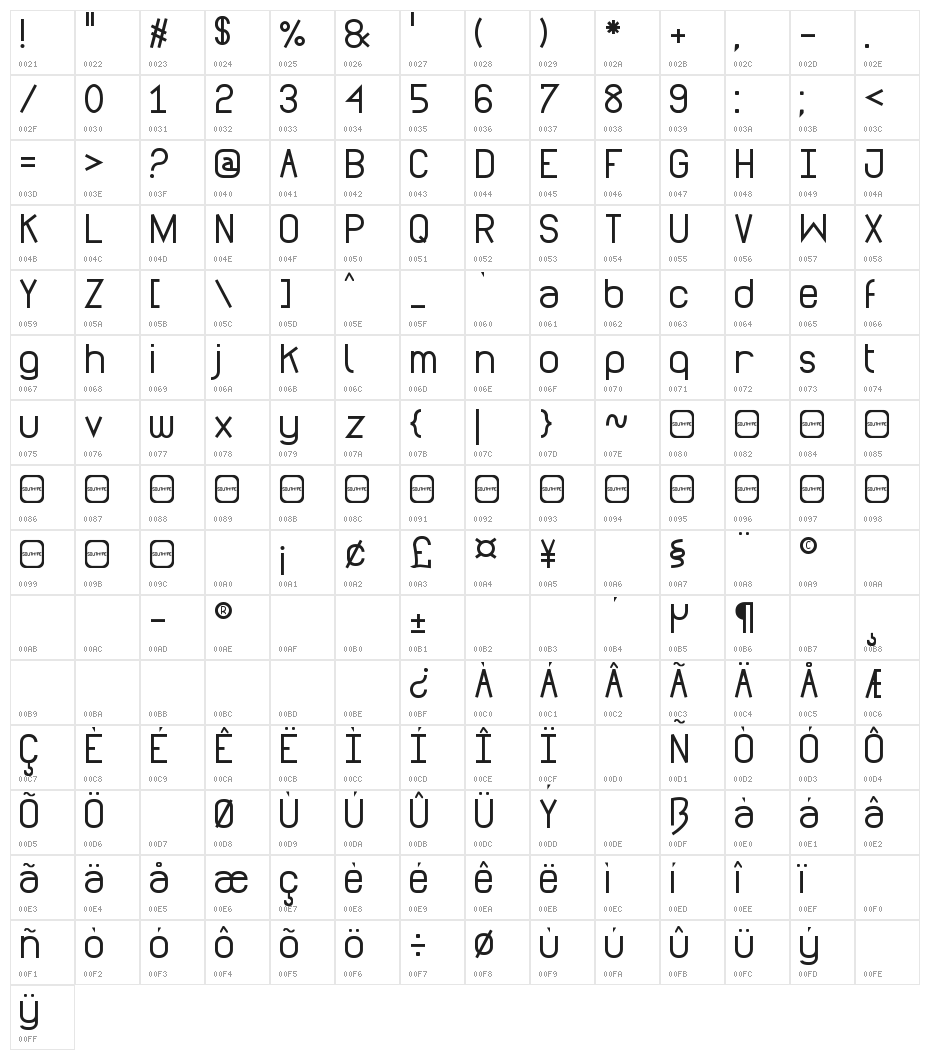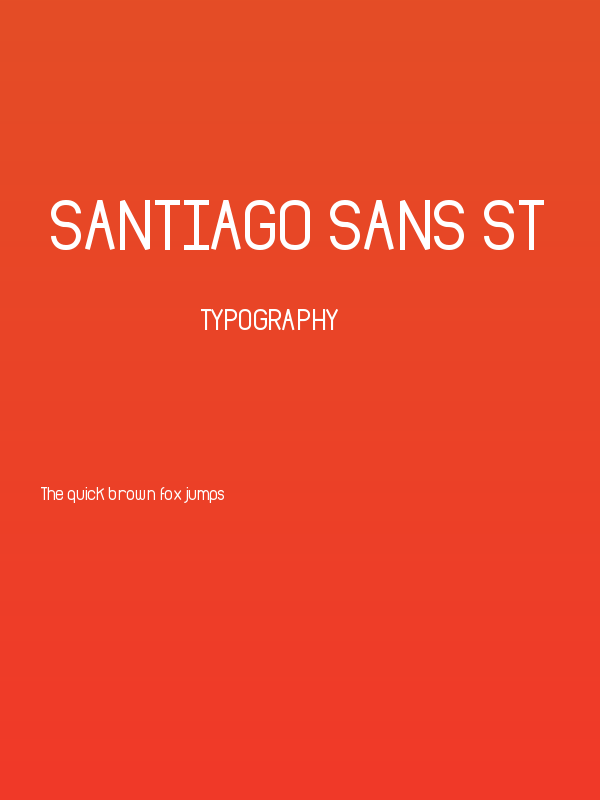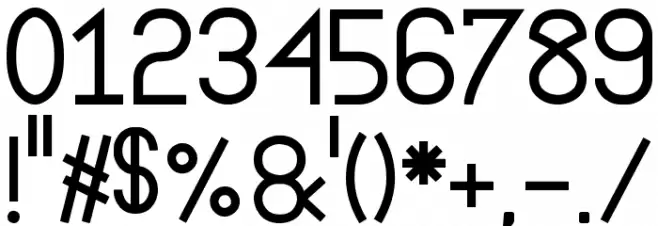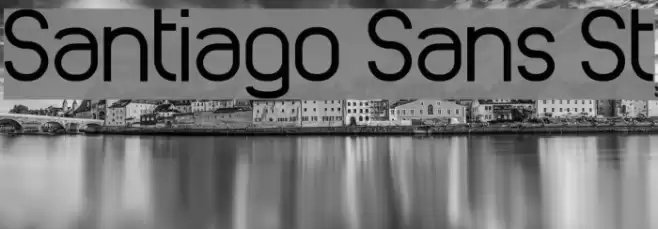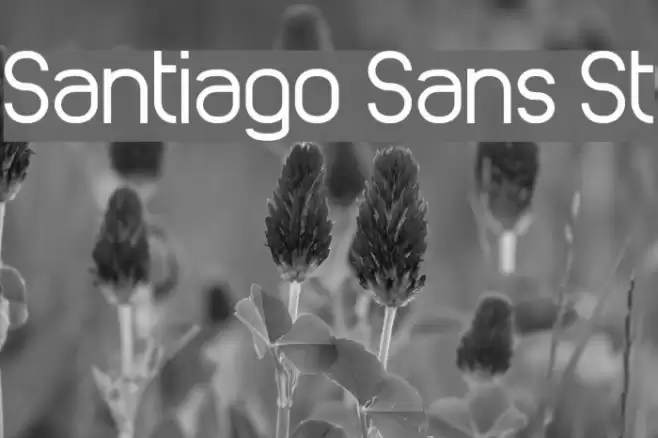
Santiago Sans St Font
This font features a clean and modern sans-serif design, characterized by its geometric shapes and uniform stroke width. The uppercase and lowercase letters are well-proportioned, providing a balanced and harmonious appearance. The numerals are clear and easy to read, making them suitable for various applications. Special characters are distinct and maintain the overall aesthetic of the font. The design is versatile, making it suitable for both digital and print media. Its simplicity and clarity make it an excellent choice for projects that require a contemporary and professional look.